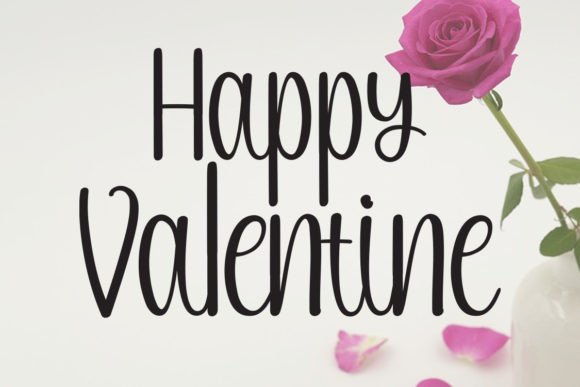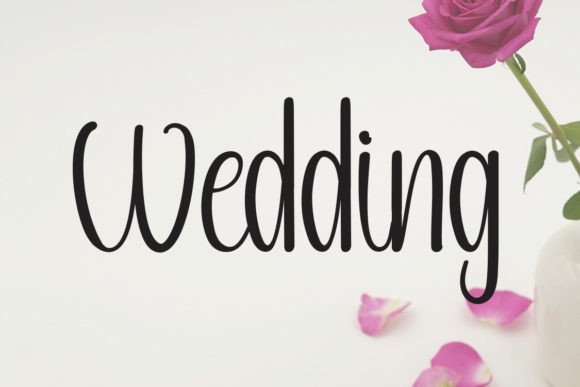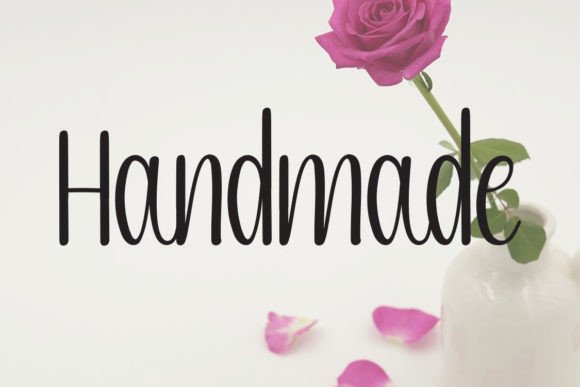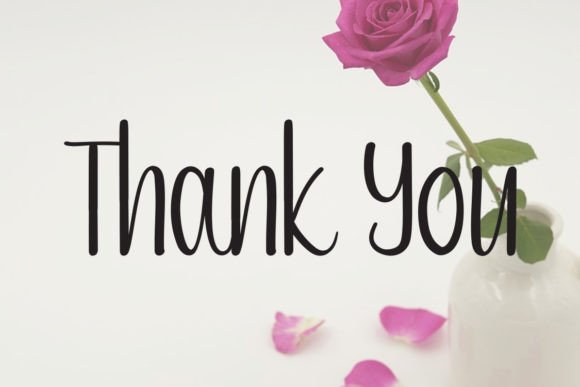
Dinner Font: The Sweet and Romantic Handwritten Font for Your Creative Projects
Are you looking for a font that exudes romance and elegance? Look no further than the Dinner Font, a beautiful handwritten font that is perfect for a variety of creative projects. With its delicate flow and sweet charm, this font is sure to impress. In this article, we’ll take a closer look at the Dinner Font, its features, and how you can use it to elevate your designs.
What is Dinner Font?
Dinner Font is a romantic handwritten font that features a delicate flow, making it perfect for projects that require a touch of elegance and sophistication. This font is designed to be versatile, making it suitable for a wide range of applications, from wall displays and wedding invitations to social media post logos and more.
Key Features of Dinner Font
- Handwritten style: The Dinner Font has a beautiful handwritten style that gives it a personal and intimate feel.
- Delicate flow: The font features a delicate flow that adds to its romantic and elegant charm.
- Versatile: The Dinner Font is suitable for a wide range of projects, from print to digital.
- Easy to read: Despite its elegant style, the font is easy to read, making it perfect for body text and headlines.
How to Use Dinner Font
The Dinner Font is perfect for a variety of creative projects, including:
- Wedding invitations: The romantic and elegant style of the Dinner Font makes it perfect for wedding invitations, save-the-date cards, and other wedding-related materials.
- Wall displays: Use the Dinner Font to create beautiful wall displays, such as quotes, poems, or lyrics.
- Social media post logos: The Dinner Font is perfect for creating social media post logos, adding a touch of elegance and sophistication to your online presence.
- Branding and packaging: Use the Dinner Font to create beautiful branding and packaging materials, such as business cards, brochures, and product labels.
Tips for Using Dinner Font
Here are some tips for using the Dinner Font effectively:
- Pair it with a sans-serif font: Pair the Dinner Font with a sans-serif font to create a beautiful contrast and add visual interest to your design.
- Use it for headlines and titles: The Dinner Font is perfect for headlines and titles, where its elegant style can shine.
- Experiment with colors: The Dinner Font looks beautiful in a variety of colors, so don’t be afraid to experiment and find the perfect hue for your design.
The Dinner Font is a beautiful handwritten font that is perfect for creative projects that require a touch of elegance and sophistication. With its delicate flow and sweet charm, this font is sure to impress. Whether you’re a designer, crafters, or DIY enthusiast, the Dinner Font is a great addition to your font collection. So why not give it a try and see how it can elevate your designs?